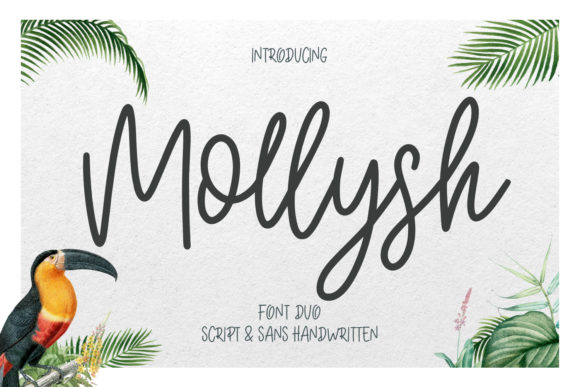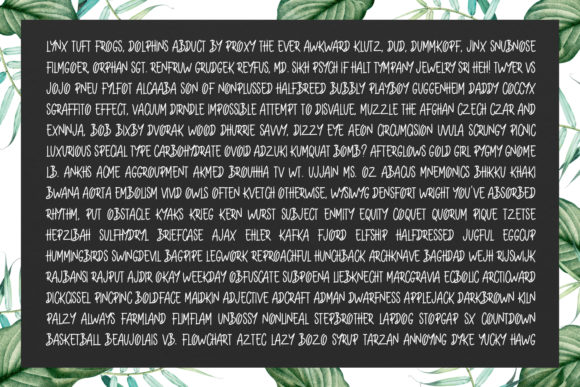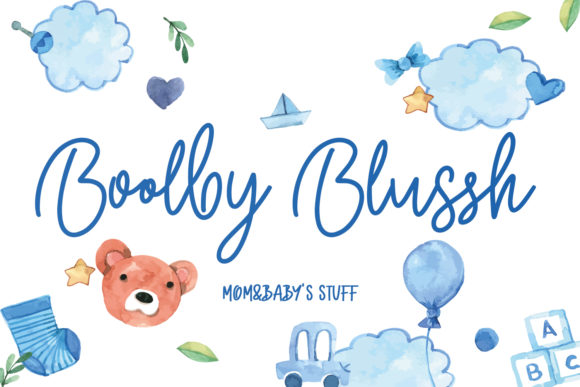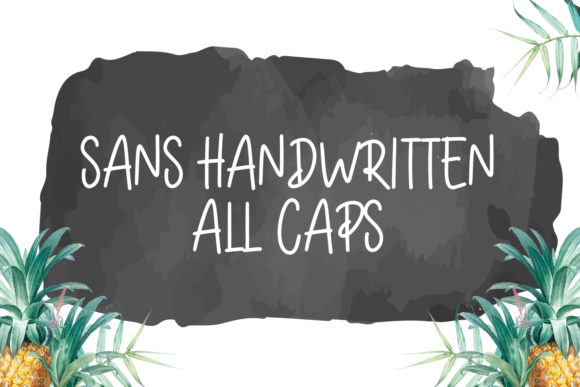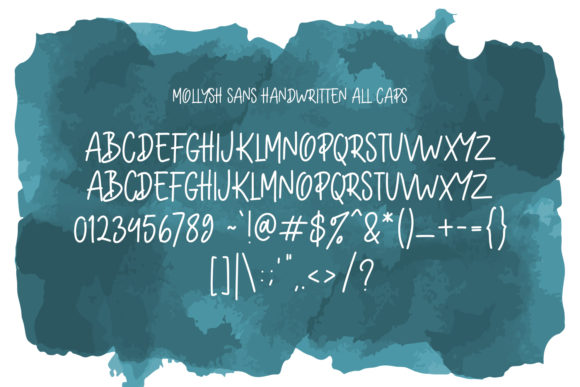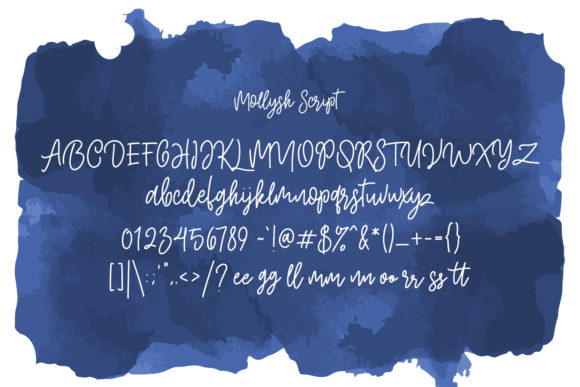
HomeScript FontsMollysh Font Script Fonts Mollysh Font FacebookXPinterestWhatsApp Mollysh Font Poster 2 Mollysh Font Poster 3 Mollysh Font Poster 4 Mollysh Font Poster 5 Mollysh Font Poster 6 About Mollysh Font Mollysh is a stunning handwritten font with a light feel. It will add a whimsical charm to any crafts idea! DOWNLOAD ON CREATIVE FABRICAThis font is sold and delivered by Creative Fabrica. Font Canyon may earn a commission if you buy through this link. People also explored Bastun Font Bauble Font Best Hero Font Mistigralley Font Renatta Font Gashyna Font Pearly Font Shunsine Font Hello Bady Font 363 0 TagsMollysh Font Previous articleArthemis FontNext articleYolanda Font LEAVE A REPLY Cancel reply Comment: Please enter your comment! Name:* Please enter your name here Email:* You have entered an incorrect email address! Please enter your email address here Website: Save my name, email, and website in this browser for the next time I comment. Personal Use Free Child Writing Free Personal Use Free Read more about this font Ancient Script Personal Use Free Read more about this font Made of Concrete Personal Use Free Read more about this font Alligator Font Personal Use Free Read more about this font BLOG Fonts That Capture the Spirit of New York City New York City is more than just a place—it’s an experience, a rhythm, a visual language... Best Fonts for T-Shirt Design – Top 2025 Picks Where to Buy American Fonts Online in 2024 How to Install and Use Fonts on Windows, macOS, and Web Projects